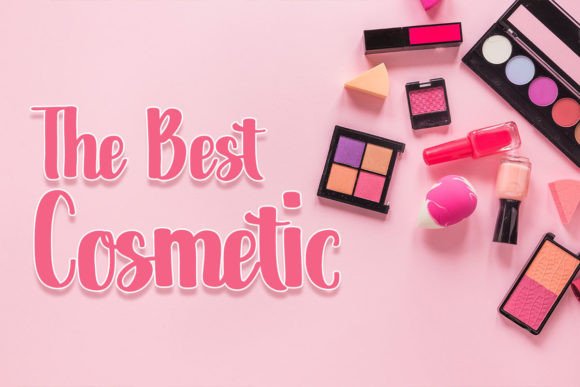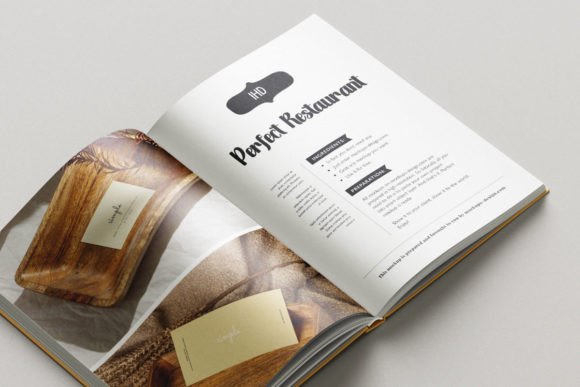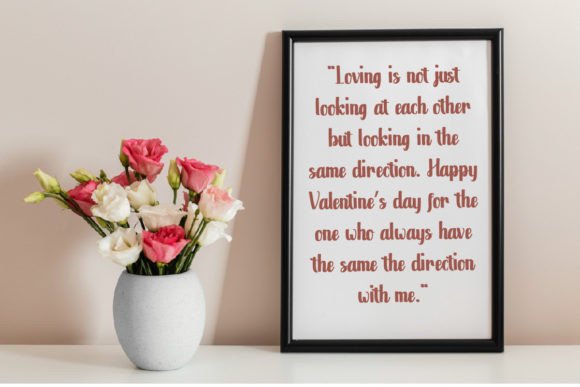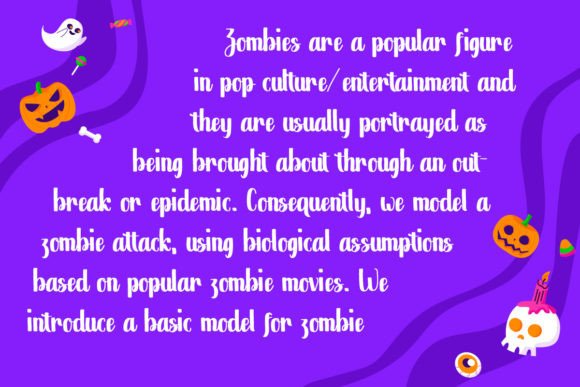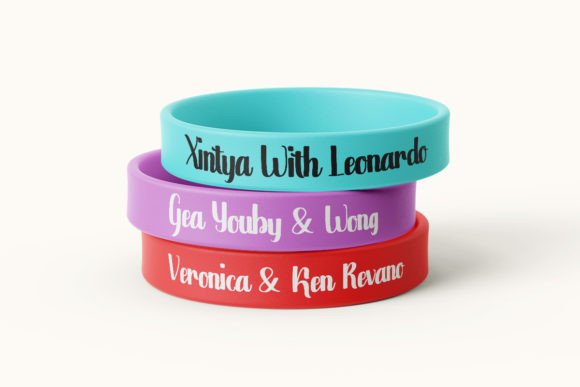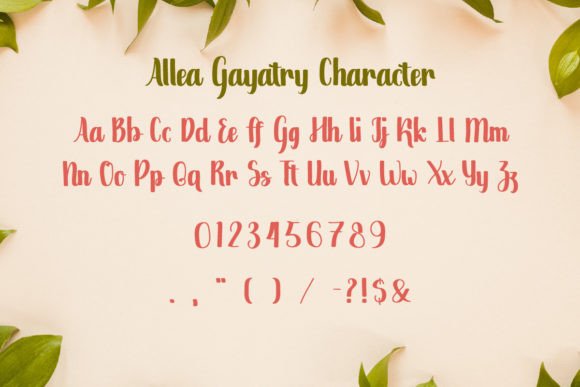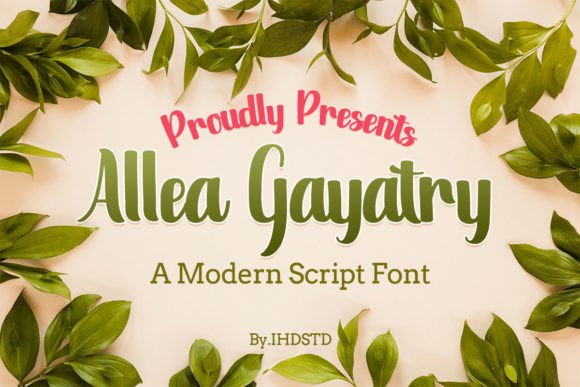
The Elegance of Allea Gayatry Font: A Designer’s Delight
I still remember the time I was working on a wedding invitation project, and my client asked for a font that exuded elegance and sophistication. I scoured the internet, tried out countless fonts, but none seemed to fit the bill. That was until I stumbled upon Allea Gayatry Font. With its delicate strokes and graceful curves, it instantly caught my attention and became the perfect choice for the project. In this article, I’ll share my experience with Allea Gayatry Font, its features, and how to make the most of it in your designs.
A Personal Review of Allea Gayatry Font
- ✨ Elegant and Refined: Allea Gayatry Font is a stylish and elegant script font that adds a touch of refinement to any project.
- ✅ Versatile: It’s perfect for a wide range of designs, from invitations and branding to packaging and digital media.
- 💫 Sophisticated: The font’s delicate strokes and graceful curves exude sophistication and class.
While Allea Gayatry Font is an excellent choice for many projects, there are a few things to keep in mind:
- ⚠️ Limited Use in Body Text: Due to its elegant and cursive nature, Allea Gayatry Font may not be the best choice for body text, especially for longer paragraphs.
- 🤔 Requires Attention to Kerning: As with any script font, kerning can be a bit tricky, and some manual adjustments may be necessary to achieve the perfect look.
The Story Behind Allea Gayatry Font
Allea Gayatry Font was designed with the intention of creating a elegant and refined script font that would add a touch of sophistication to any project. The designer aimed to create a font that would be perfect for invitations, branding, and other designs where a touch of elegance is needed.
Q: What is Allea Gayatry Font best used for?
A: Allea Gayatry Font is best used for designs that require a touch of elegance and sophistication, such as invitations, branding, and packaging.
Q: Can I use Allea Gayatry Font for body text?
A: While Allea Gayatry Font is an excellent choice for headings and titles, it may not be the best choice for body text, especially for longer paragraphs.
Q: Is Allea Gayatry Font suitable for digital media?
A: Yes, Allea Gayatry Font is suitable for digital media, including social media graphics, website headers, and email newsletters.